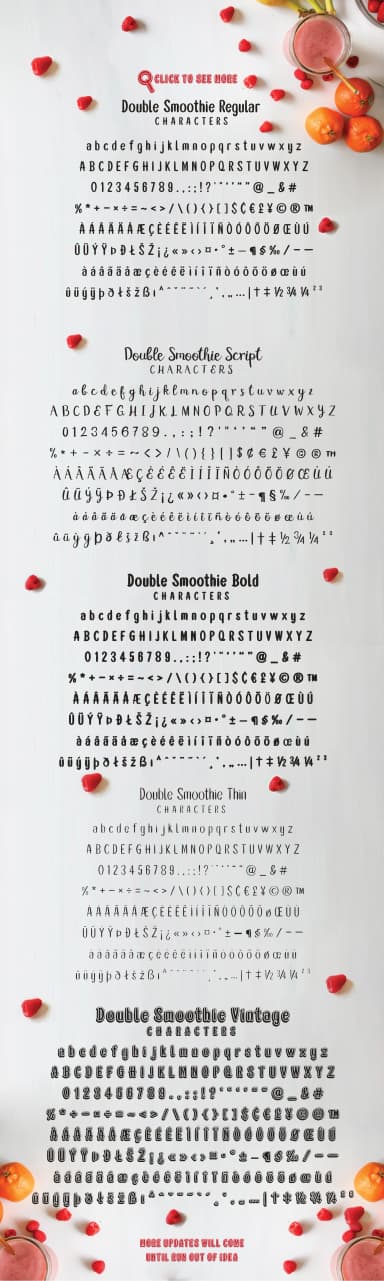
1 / 9About Double Smoothie Font
Double Smoothie by LTNG is a hand-brushed script that brings fluid elegance and approachable charm to your typographic toolkit. The typeface family combines smooth, rounded letterforms with playful character details, making it ideal for wedding invitation suites, boutique business branding, and social media header graphics. Available in multiple weights including Bold and Thin variations, the font adapts effortlessly from delicate flourished designs to bolder headline treatments. The included doodle elements add an extra layer of personality, perfect for craft enthusiasts creating DIY product labels, custom greeting cards, and decorative social graphics that stand out.
What makes Double Smoothie particularly versatile is its balance between sophistication and approachability. The smooth, flowing strokes feel contemporary while retaining a handcrafted quality that resonates with audiences seeking authentic, personal touches in their designs. Whether you're designing event materials, developing brand identities for creative entrepreneurs, or creating custom stationery, this font family delivers warmth and professionalism in equal measure. The vintage-inspired elements give you additional design flexibility for projects that benefit from a touch of nostalgic charm.
Double Smoothie Font is a script font that shines as a display or heading face. Pair it with a clean sans-serif or serif font for body text β the contrast creates a clear hierarchy while the two styles stay balanced and easy to read.
Double Smoothie Font
by LTNG